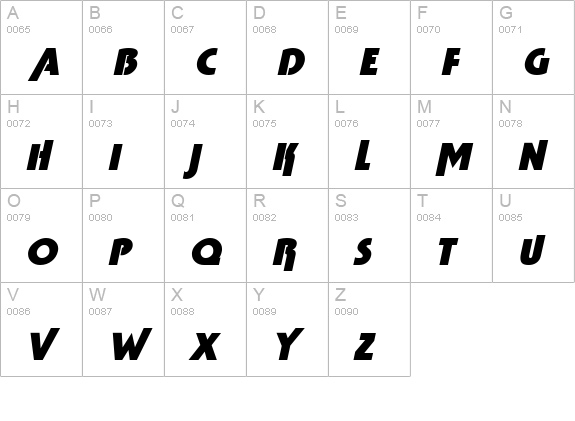
TabathaHeavy Italic Font Details
TabathaHeavy Italic is a distinctive, italic variant in the TabathaHeavy typeface family \xE2\x80\x94 well suited to design and typography projects.
TabathaHeavy Italic is a bold and striking font that exudes confidence and power. With its slanted and exaggerated letterforms, this typeface commands attention and leaves a lasting impression. It is perfect for headlines, logos, posters, and any design project that requires a touch of drama. The boldness of TabathaHeavy Italic is balanced by its elegant curves and smooth lines, creating a harmonious blend of strength and grace. Each letter is meticulously crafted to convey a sense of weight and solidity, making it ideal for conveying a strong and impactful message. What sets TabathaHeavy Italic apart is its generous availability. This font is freely available to download at FontsMarket.com, making it accessible to designers and creatives from all walks of life. Whether you are a professional graphic designer or a hobbyist, you can now add this remarkable font to your collection without breaking the bank. The versatility of TabathaHeavy Italic allows it to be used across various design projects and creative mediums. Its commanding presence on a website header or a book cover instantly grabs attention, while its legibility ensures that your message is conveyed clearly and effectively. With TabathaHeavy Italic, you can effortlessly enhance the visual impact of your designs and elevate them to new heights. So why wait? Head over to FontsMarket.com and get your hands on this extraordinary font today, completely free of charge. Unleash your creativity and let TabathaHeavy Italic make a bold statement in your next design project.